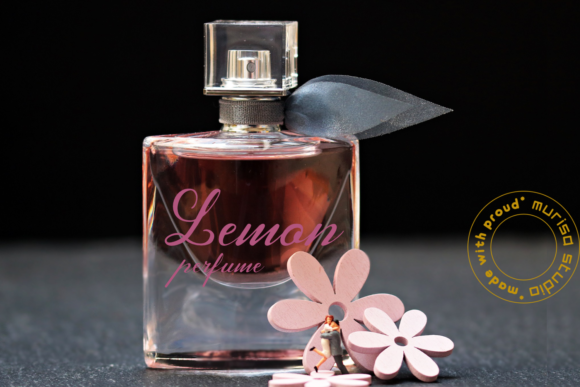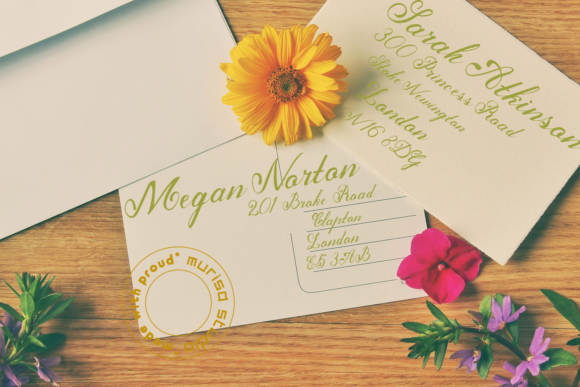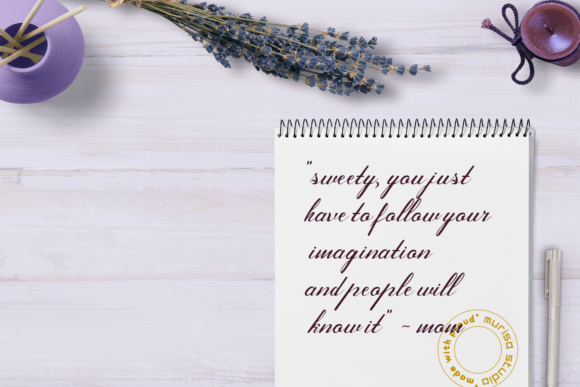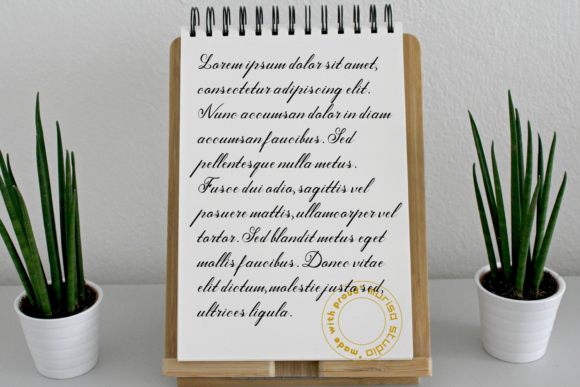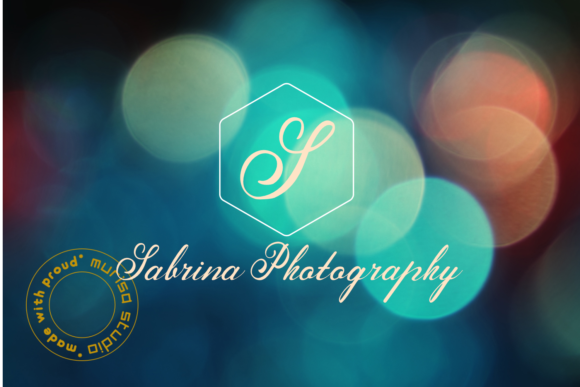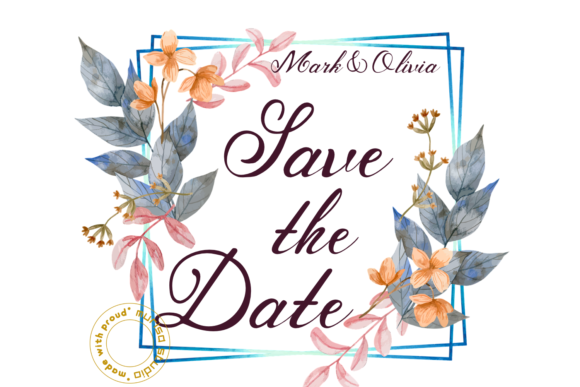
Introducing Barbara Font: Elevate Your Designs with Elegance and Sophistication
Are you a designer, crafter, or DIY enthusiast looking for a font that can add a touch of elegance and sophistication to your projects? Look no further than Barbara Font, a stunning free-flowing script font that is perfect for a wide range of applications. In this article, we’ll take a closer look at Barbara Font, its features, and how you can use it to take your designs to the next level.
What is Barbara Font?
Barbara Font is a beautiful, free-flowing script font that has been carefully crafted to provide a high-end, luxurious feel to any design project. Its elegant and fluid lines make it perfect for use on packaging products, invitation cards, flyers, mockups, event posters, and anything else that requires a touch of sophistication.
Key Features of Barbara Font
- PUA Encoded: Barbara Font is PUA (Private Use Area) encoded, which means that you can access all of the glyphs and swashes with ease. This makes it simple to customize your designs and add unique touches.
- High-Quality Design: Barbara Font has been designed with high-quality in mind. Its smooth lines and elegant curves make it perfect for use on a wide range of projects, from business cards to billboards.
- Versatile: Barbara Font is incredibly versatile, making it perfect for use on a wide range of projects, including:
- Packaging products
- Invitation cards
- Flyers
- Mockups
- Event posters
- Business cards
- Brochures
Benefits of Using Barbara Font
So, why should you choose Barbara Font for your next design project? Here are just a few benefits of using this stunning script font:
- Adds Elegance and Sophistication: Barbara Font adds a touch of elegance and sophistication to any design project, making it perfect for businesses and individuals who want to make a statement.
- Increases Readability: The clear and flowing lines of Barbara Font make it easy to read, even at small sizes.
- Customizable: With PUA encoding, you can easily access all of the glyphs and swashes, allowing you to customize your designs and add unique touches.
- Time-Saving: Barbara Font is a pre-designed font, which means that you can save time and effort by not having to create your own font from scratch.
Tips and Tricks for Using Barbara Font
Here are a few tips and tricks for getting the most out of Barbara Font:
- Experiment with Different Sizes: Barbara Font looks great at a wide range of sizes, from small to large.
- Use with Images: Barbara Font pairs perfectly with images, making it ideal for use on flyers, posters, and other visual materials.
- Add Texture and Patterns: Add texture and patterns to your designs to give them an extra layer of depth and interest.